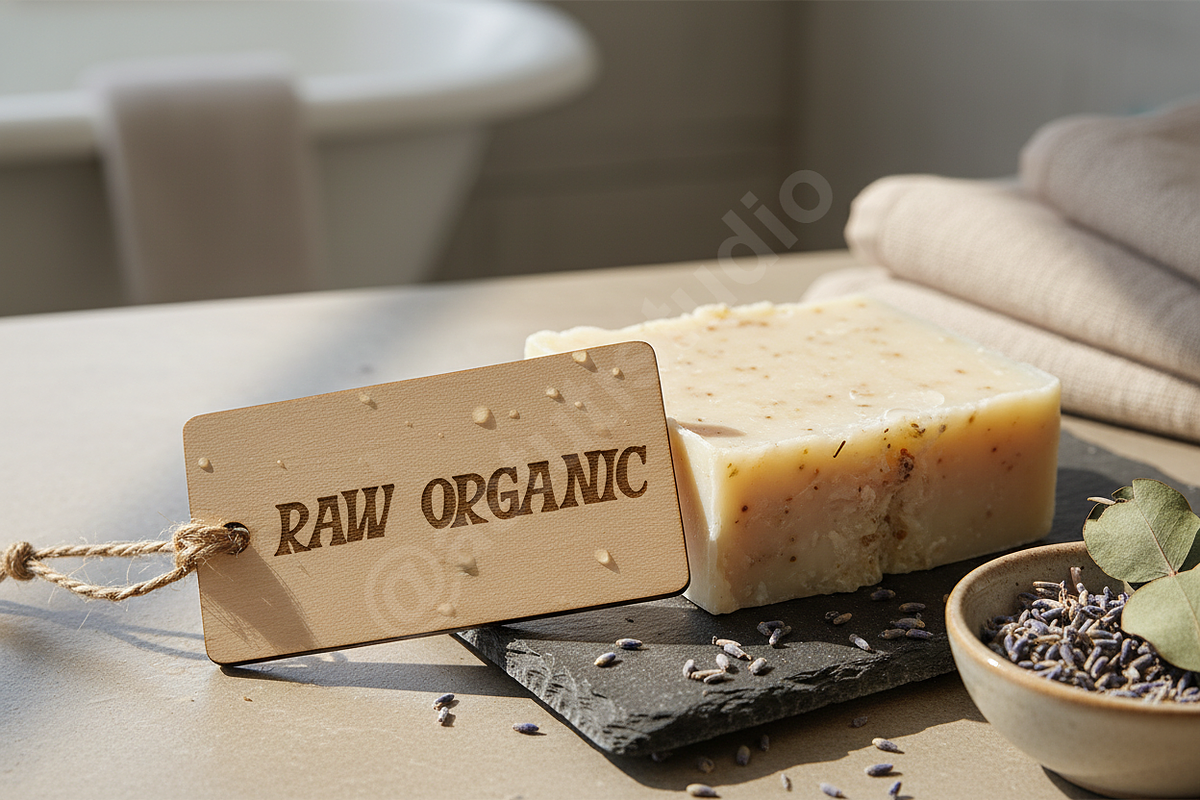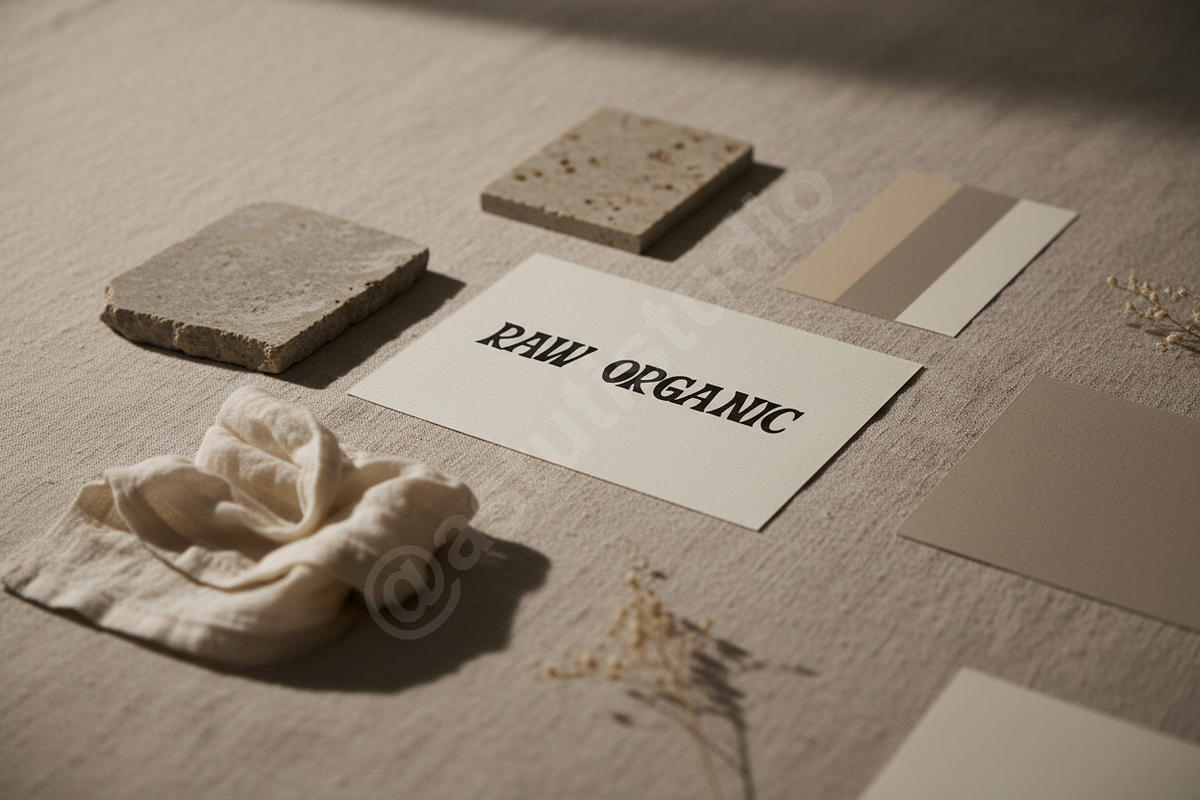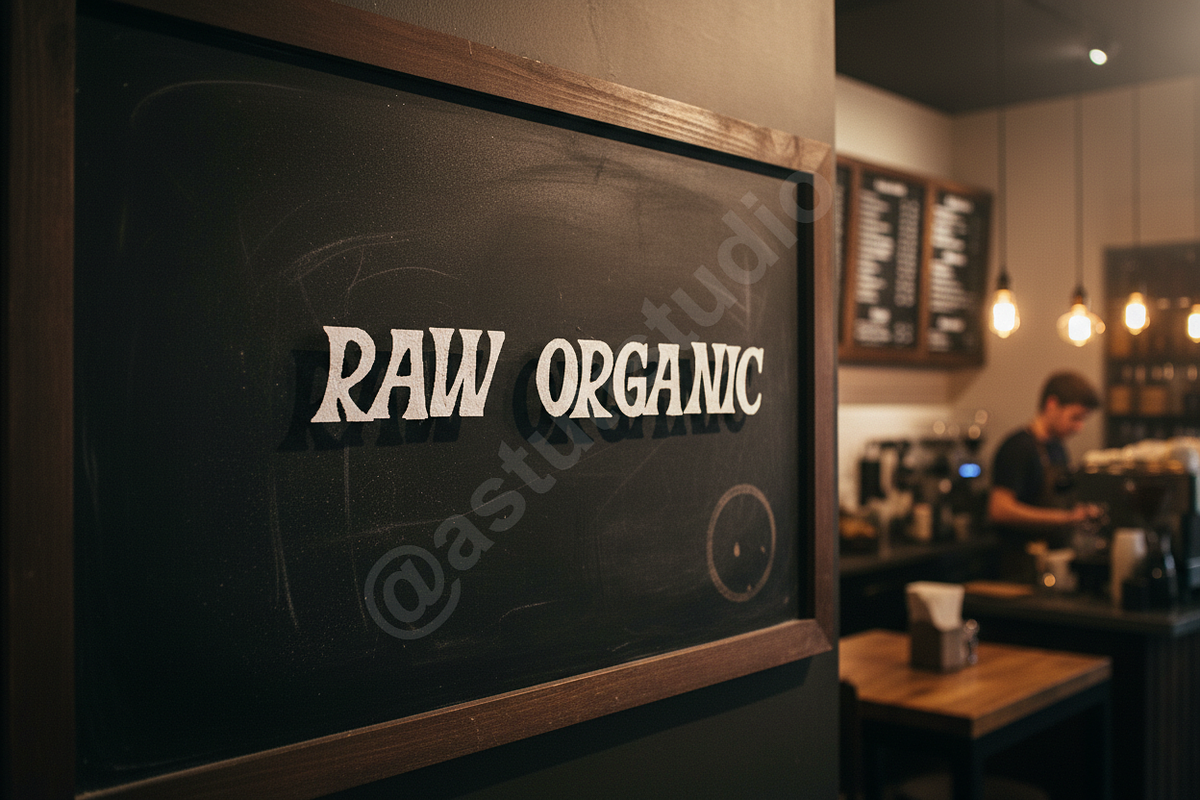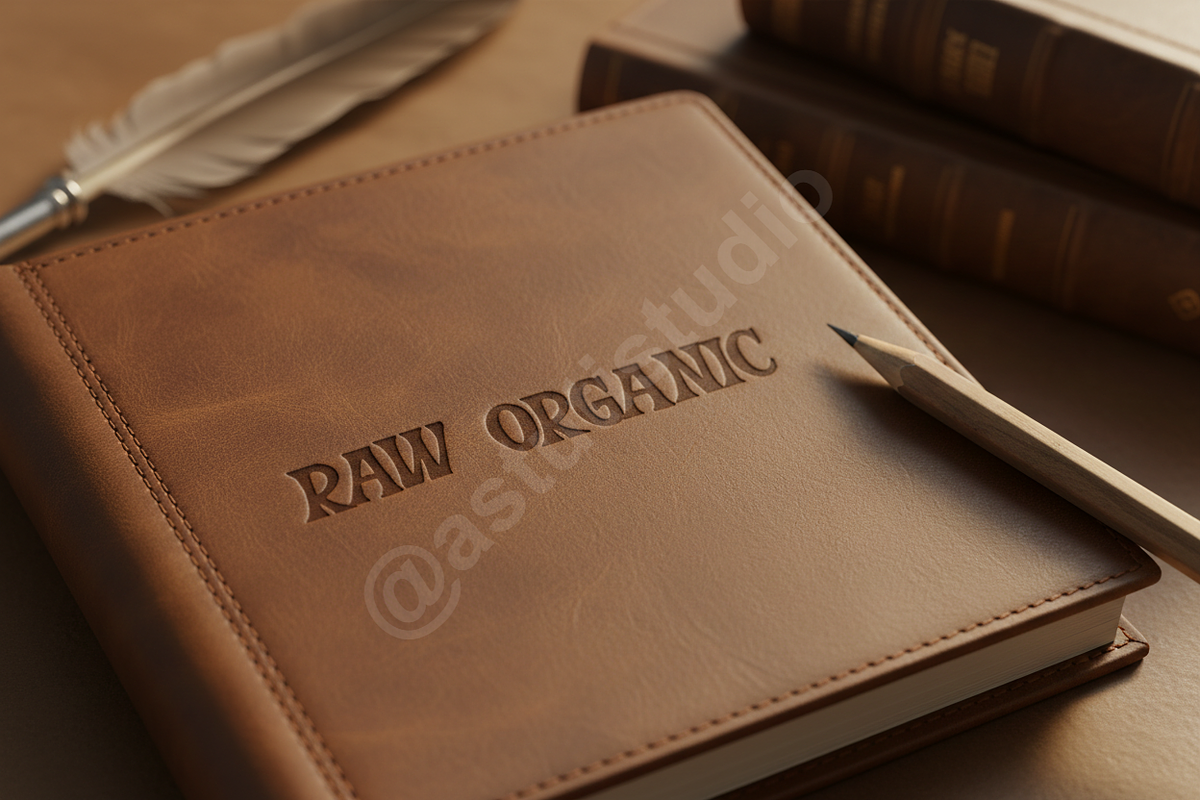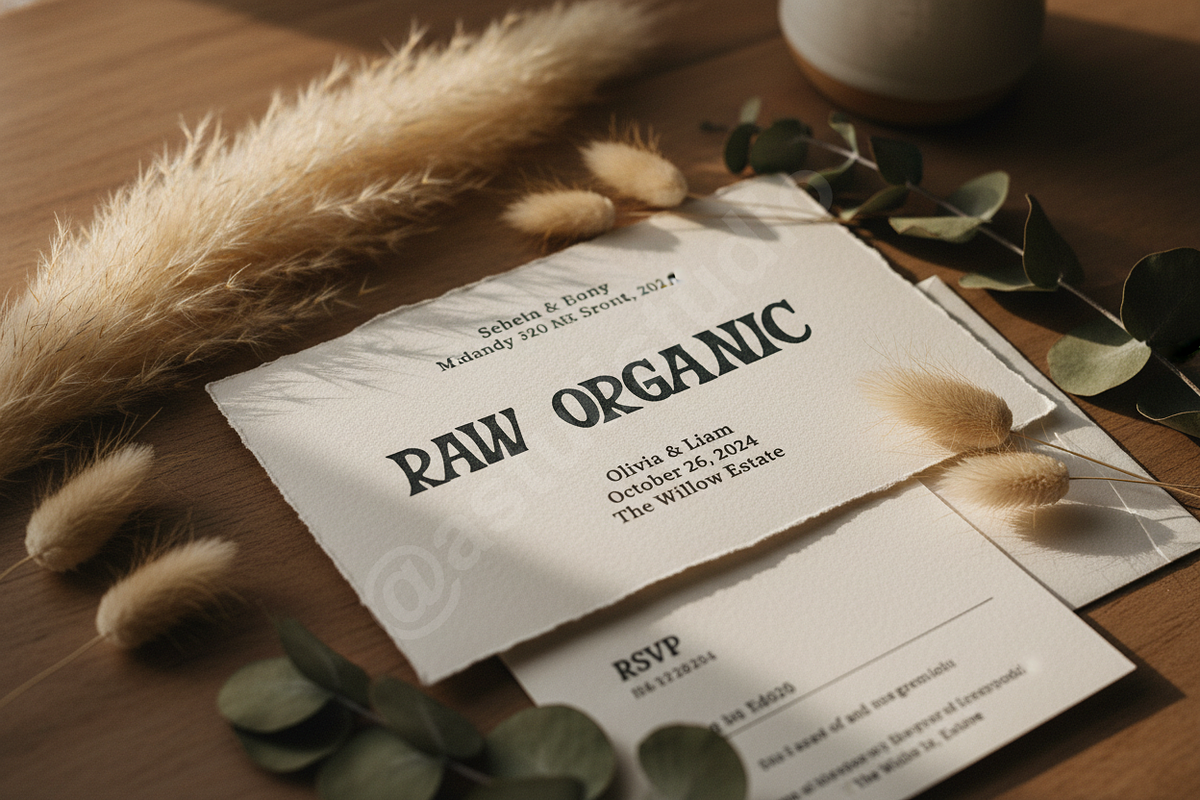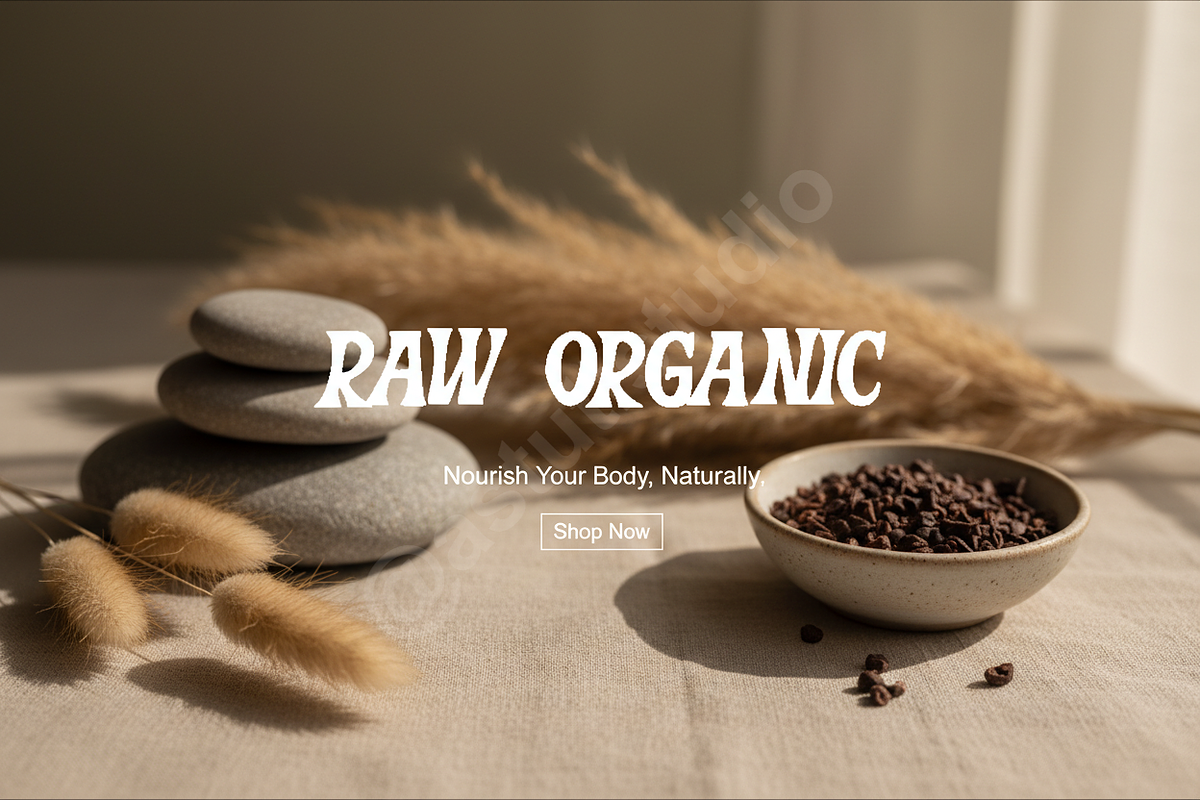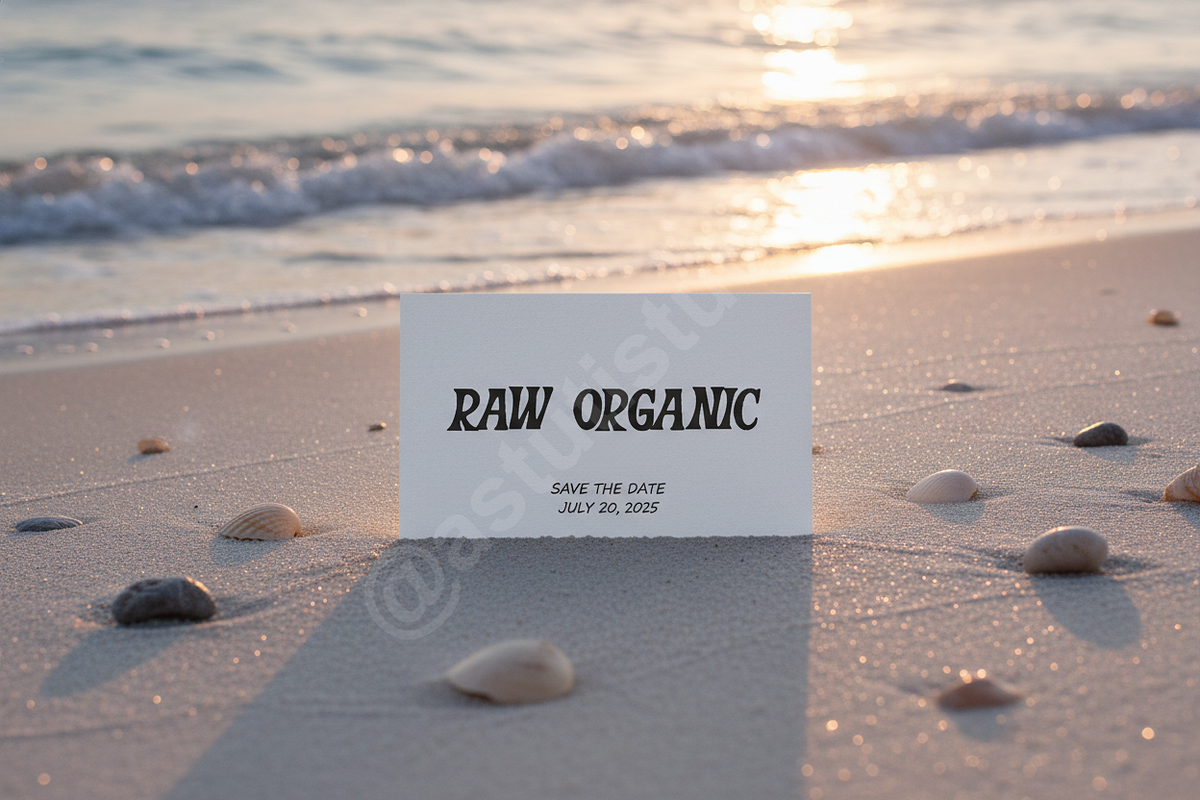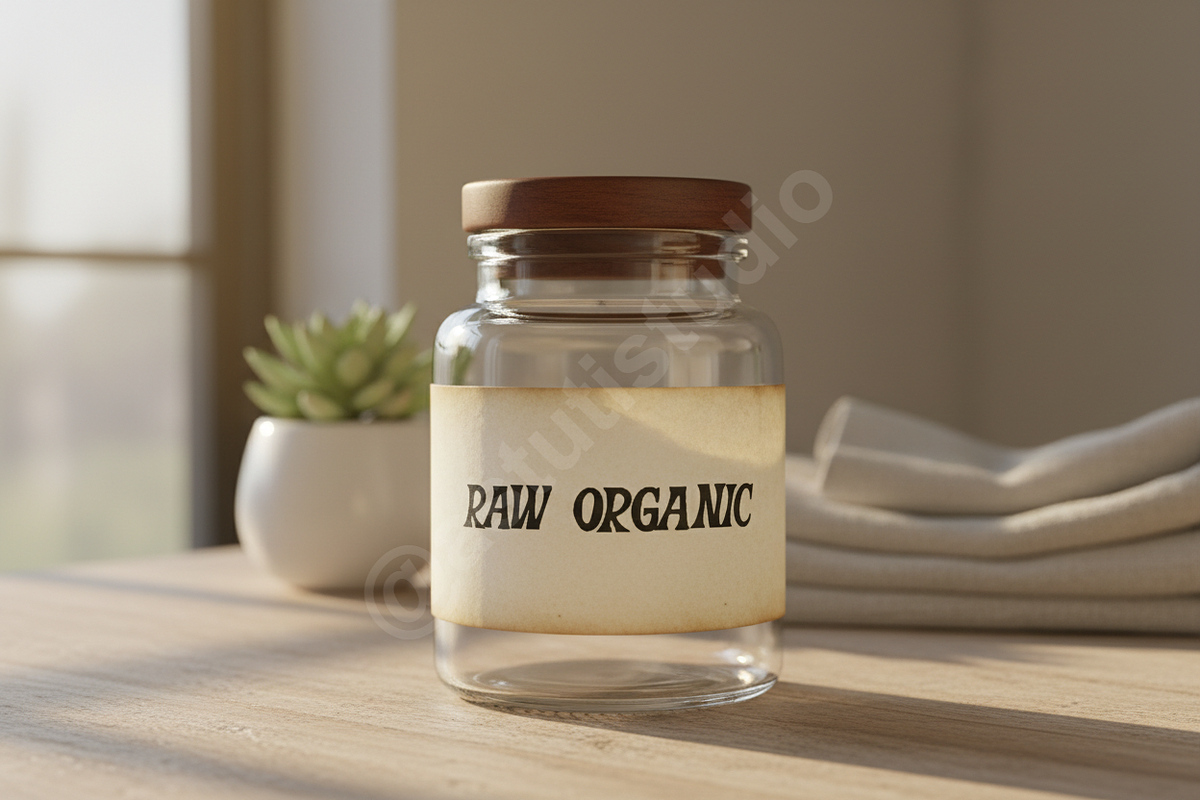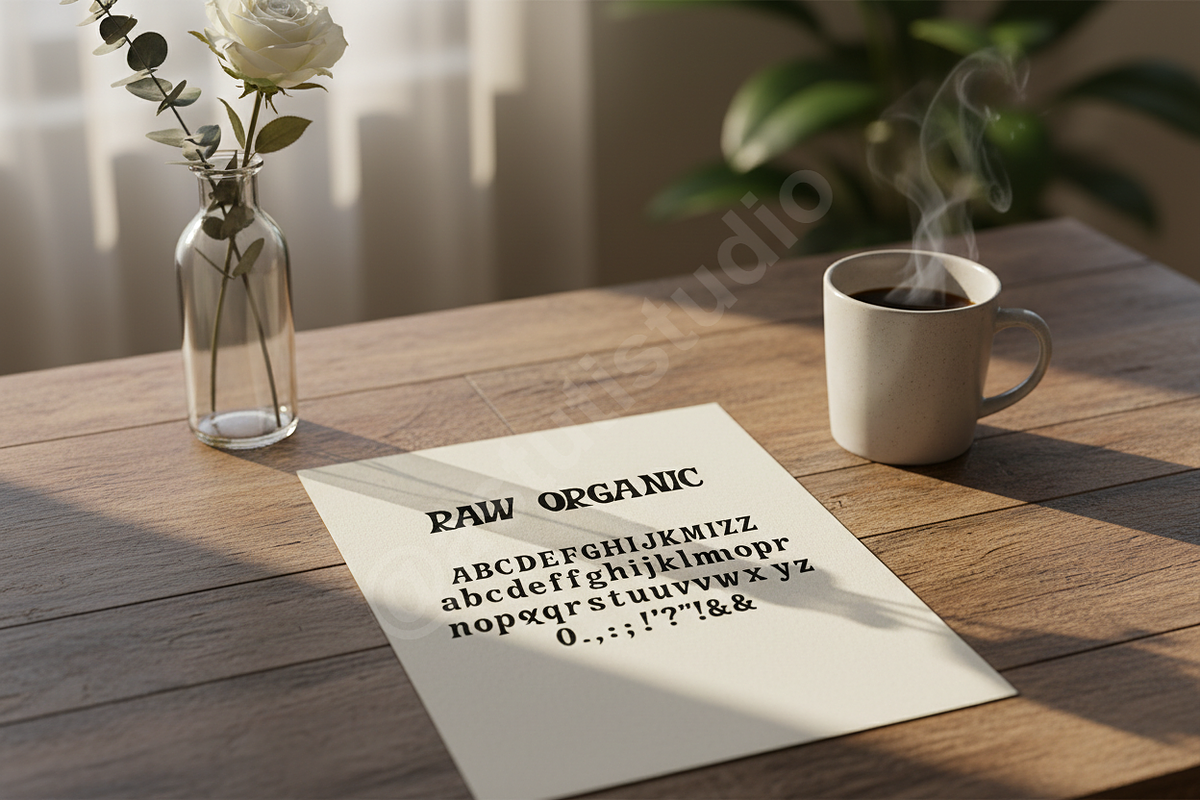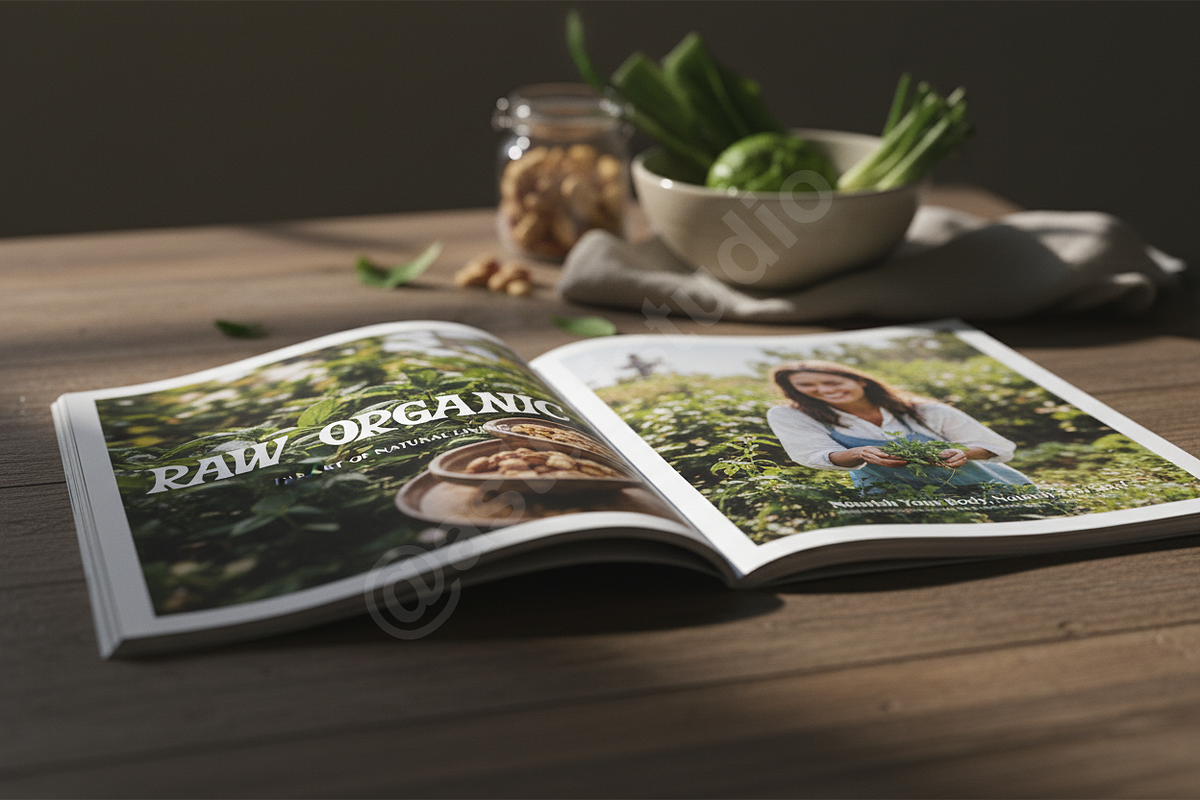
Natu | Sophisticated Modern Serif Ty
INTRODUCTION Natu is a premium serif typeface meticulously crafted for creators who prioritize elegance and clarity. Inspired by high-end fashion and minimalist studio aesthetics, Natu brings an air of quiet luxury to any design canvas. It is the ideal choice for sophisticated branding, refined editorial layouts, and elevated social media storytelling.
- Refined high-contrast letterforms for a timeless look
- Selection of unique ligatures and stylistic alternates
- Optimized kerning for professional display and legibility